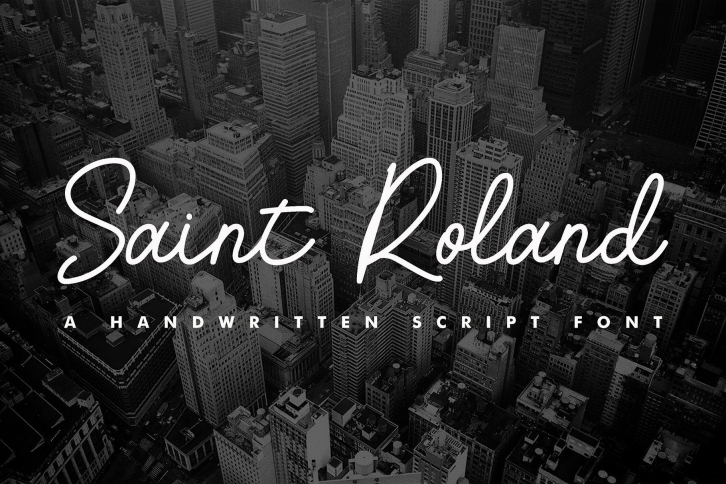
Saint Roland FONT Download
Saint Roland is a handwritten monoline typeface specially modern flows, resulting in a font that looks so modern and classy. This font is perfect for any design.
Saint Roland is perfect for branding projects, logo, wedding designs, social media posts, advertisements, product packaging, product designs, label, photography, watermark, invitation, stationery and any projects that need handwriting taste.
– Ton of glyphs
– Ligature